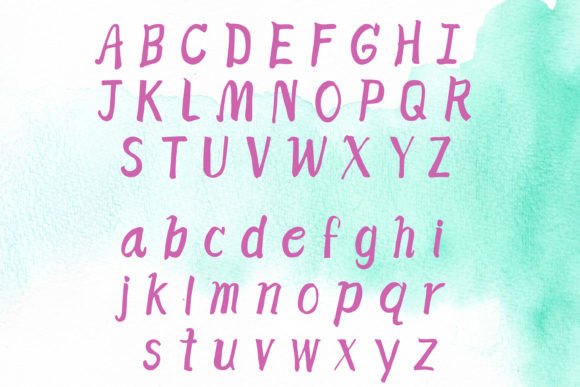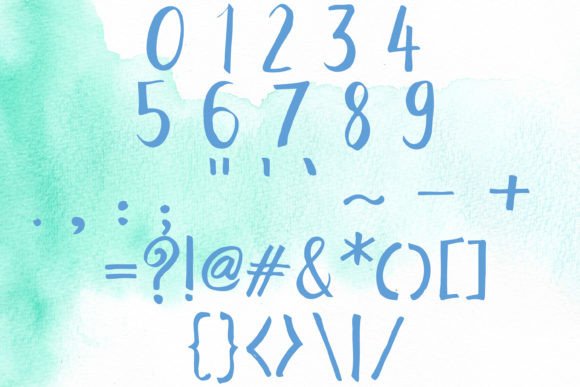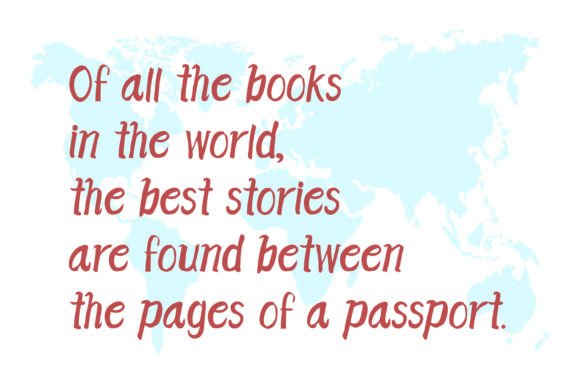
Introduction to Seazaa Font
Have you ever been in the midst of a creative project, struggling to find the perfect font to capture the essence of your idea? The frustration is real, but what if I told you there’s a font that can transport you to a world of relaxation and good vibes? Say hello to the Seazaa Font, a stunning handwritten font designed to evoke feelings of calmness and serenity.
As a designer, you know the value of having a reliable design resource at your fingertips. The Seazaa Font is more than just a pretty face – it’s a versatile tool that can be used for a wide range of creative projects, from quotes and watermarks to logos and storybooks. With its transparent background and high-quality design, this font is sure to elevate your work to the next level.
Key Features of Seazaa Font
- High-quality, unique font design perfect for creative projects, offering a modern and stylish aesthetic.
- Transparent background option allows for seamless integration with different backgrounds, giving users more creative control.
- Seazaa Font is a versatile design element that can be used in a wide range of creative projects, from branding and advertising to digital art and graphics.
Honest Review: Seazaa Font
As a designer, I’m always on the lookout for high-quality design resources to elevate my creative projects. Recently, I had the chance to try out the Seazaa Font, and I’m excited to share my thoughts with you.
- The Seazaa Font offers a clean and modern design aesthetic that’s perfect for a wide range of creative projects, from digital to print.
- The font is highly legible, even at smaller font sizes, making it an excellent choice for body text or headings.
- The font family includes a variety of weights and styles, giving designers plenty of flexibility when it comes to typography.
- The Seazaa Font may not be the best choice for projects that require a transparent background, as the font’s design may not be suitable for this use case.
Overall, I’m impressed with the Seazaa Font’s design and functionality. While it may have some limitations, it’s a solid choice for designers looking for a high-quality, free font for their creative projects.
Tips for Getting the Most Out of Seazaa Font
When using Seazaa Font, consider the following tips: use it in conjunction with a transparent background for a seamless design experience, experiment with different font sizes and colors to add visual interest, and use it in combination with other design elements to create a cohesive look.
Seazaa Font is commonly used in a variety of creative projects, including logo design, branding, and marketing materials. Its high quality and versatility make it an ideal choice for designers looking to add a professional touch to their work.